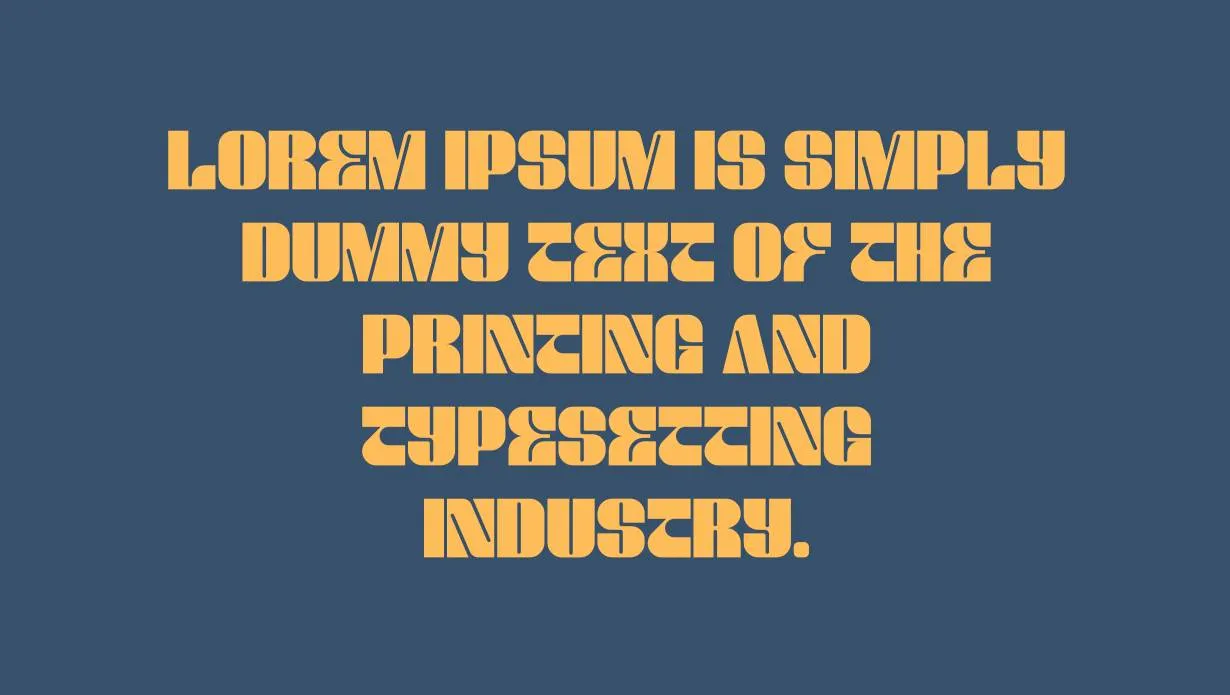
Mentra Font is a display font that was created by Heru Utama Putra. It has a unique and innovative texture that makes it perfect for comic books, covers, names, etc.
Mentra Font Family